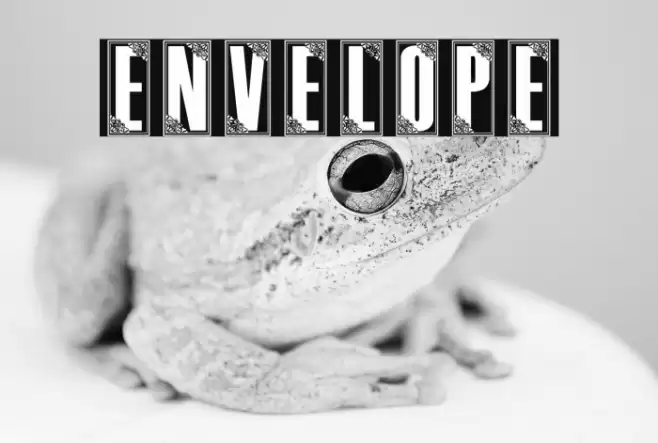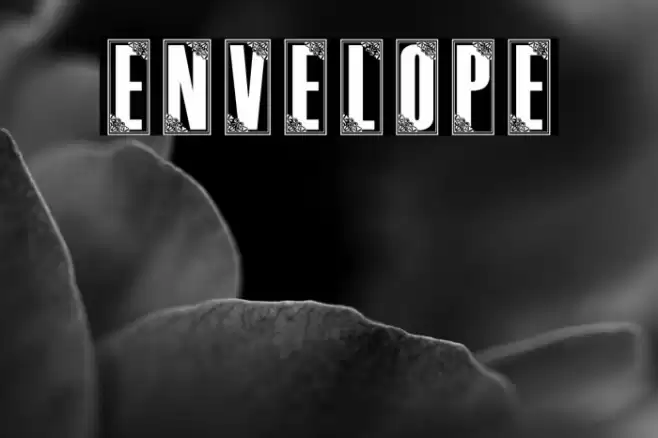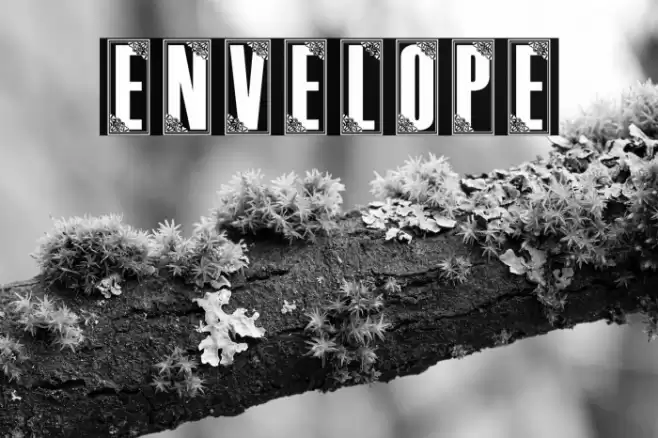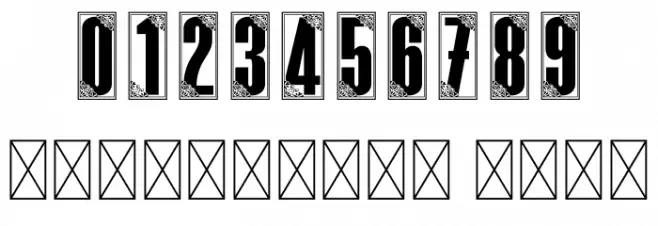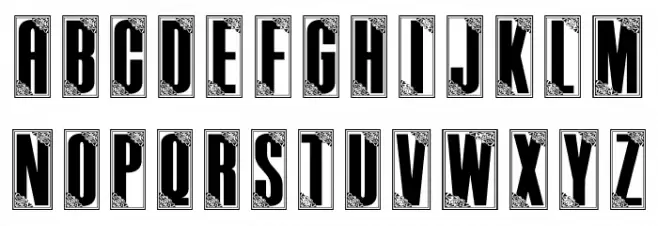
Envelope Font
Envelope Description
This font features a bold, decorative style with each character enclosed in a rectangular frame. The letters are uppercase and have a strong, impactful presence, making them ideal for attention-grabbing designs. The corners of each frame are adorned with intricate ornamental details, adding a touch of elegance and complexity. The characters are evenly spaced, ensuring readability while maintaining a cohesive look. The numbers and special characters follow the same design principles, providing a consistent aesthetic across all elements.
Bold, decorative font with framed characters and ornamental details from Uncategorized fonts.
- Proposed Projects: Ideal for posters, signage, branding, and any project requiring a bold, decorative typeface.
- Contrast: High